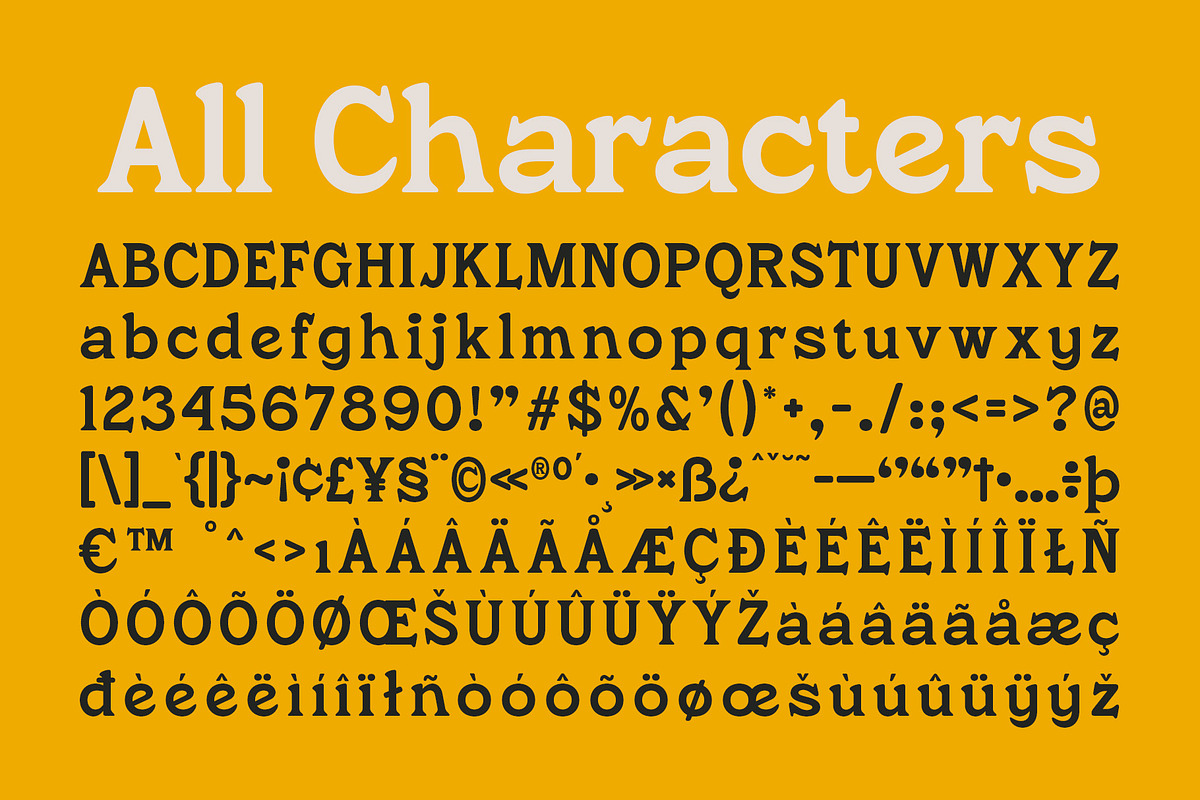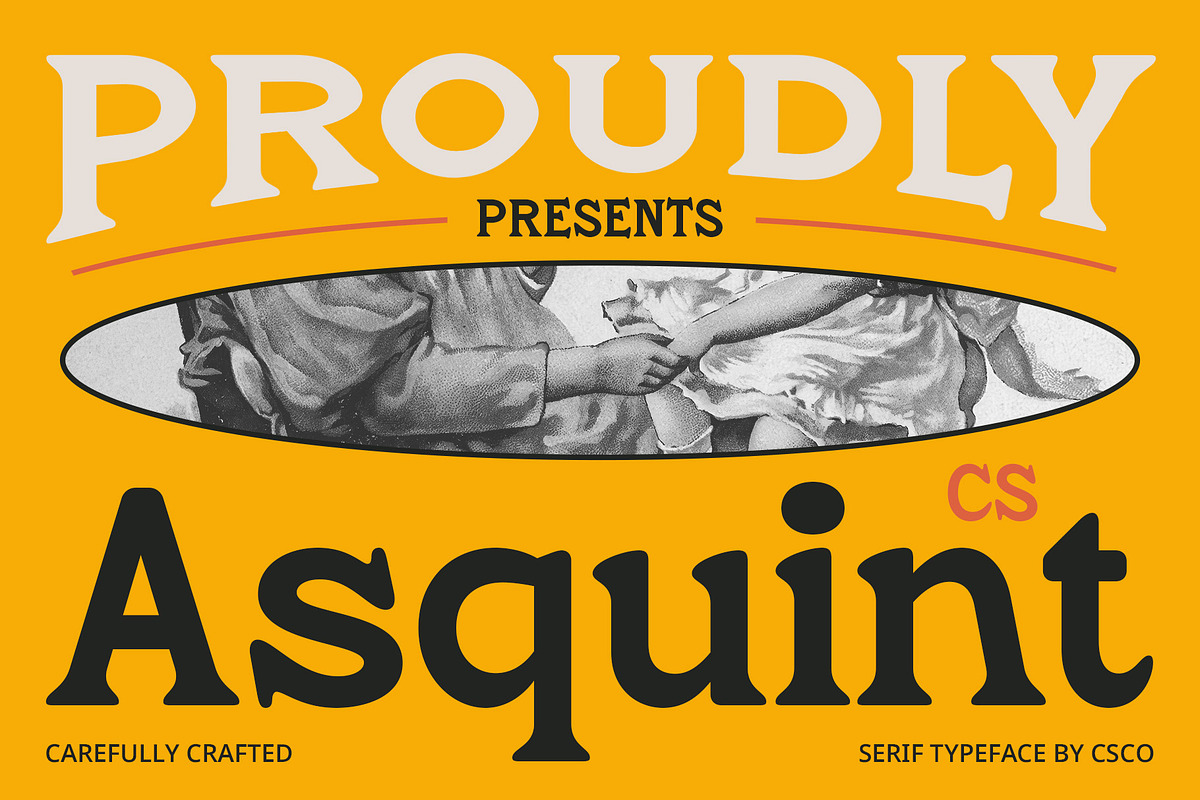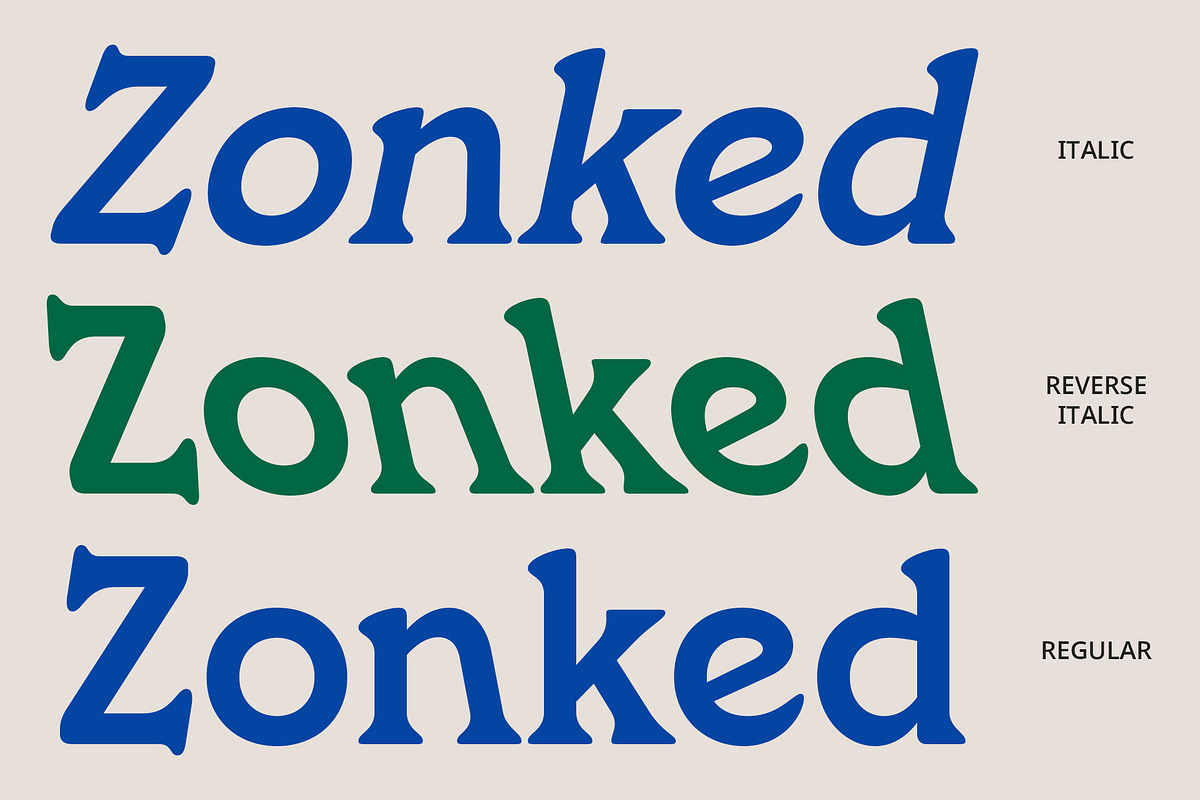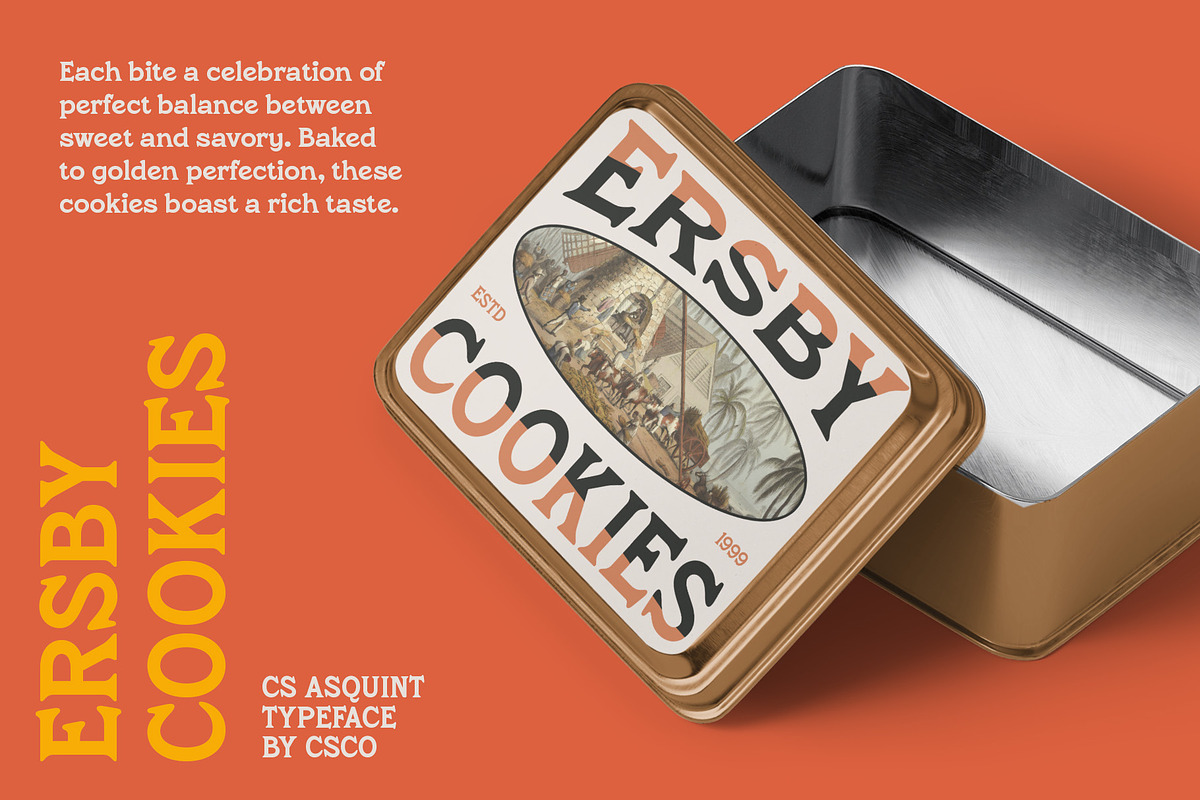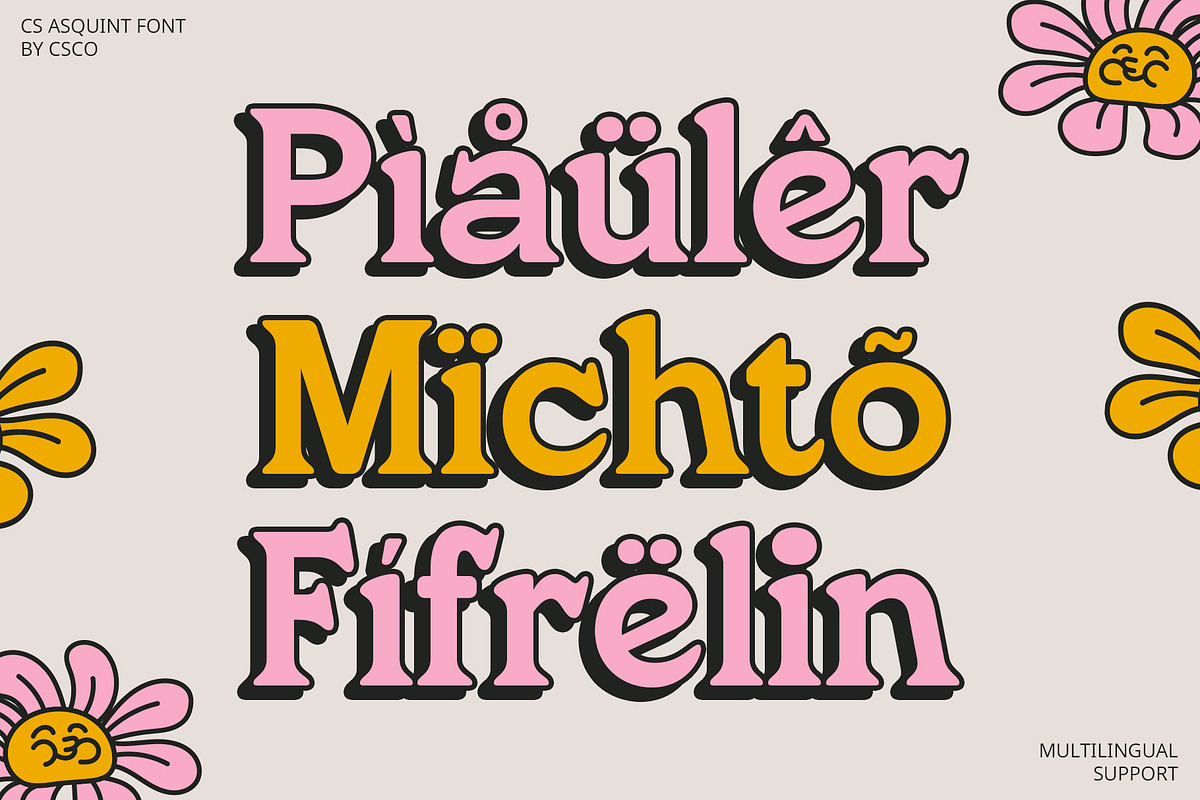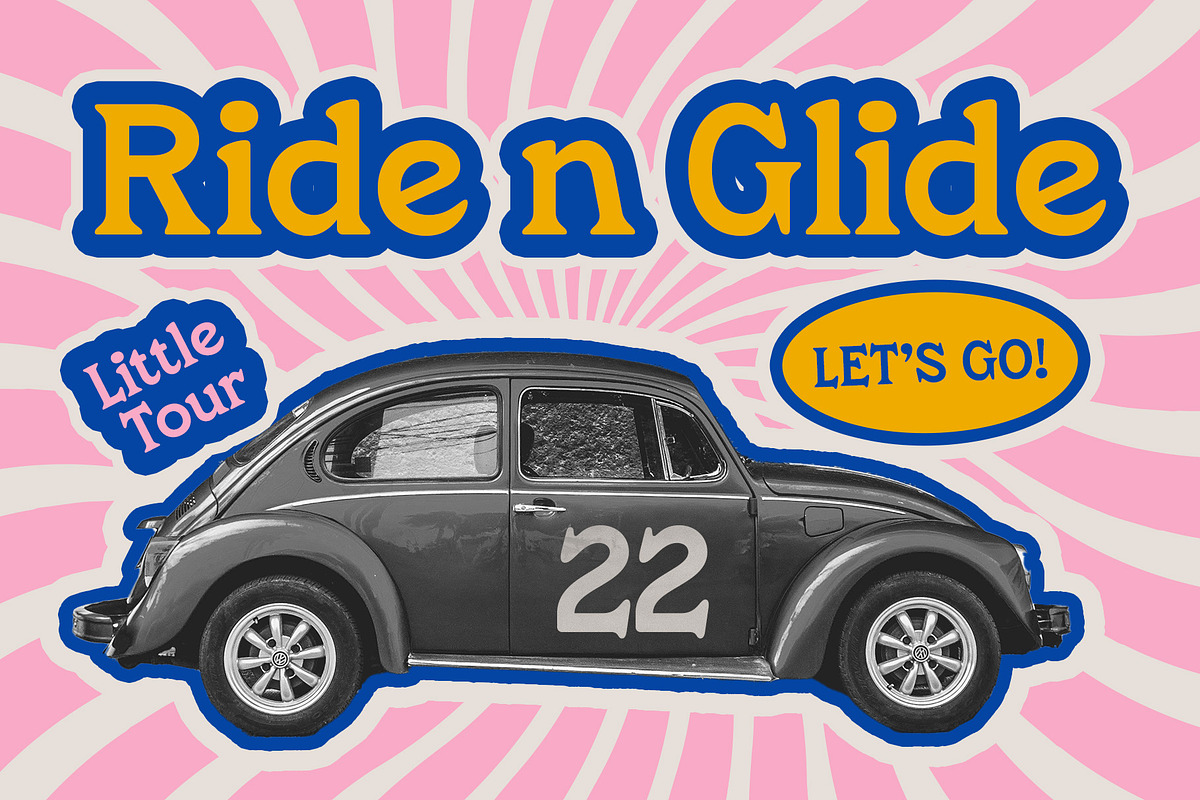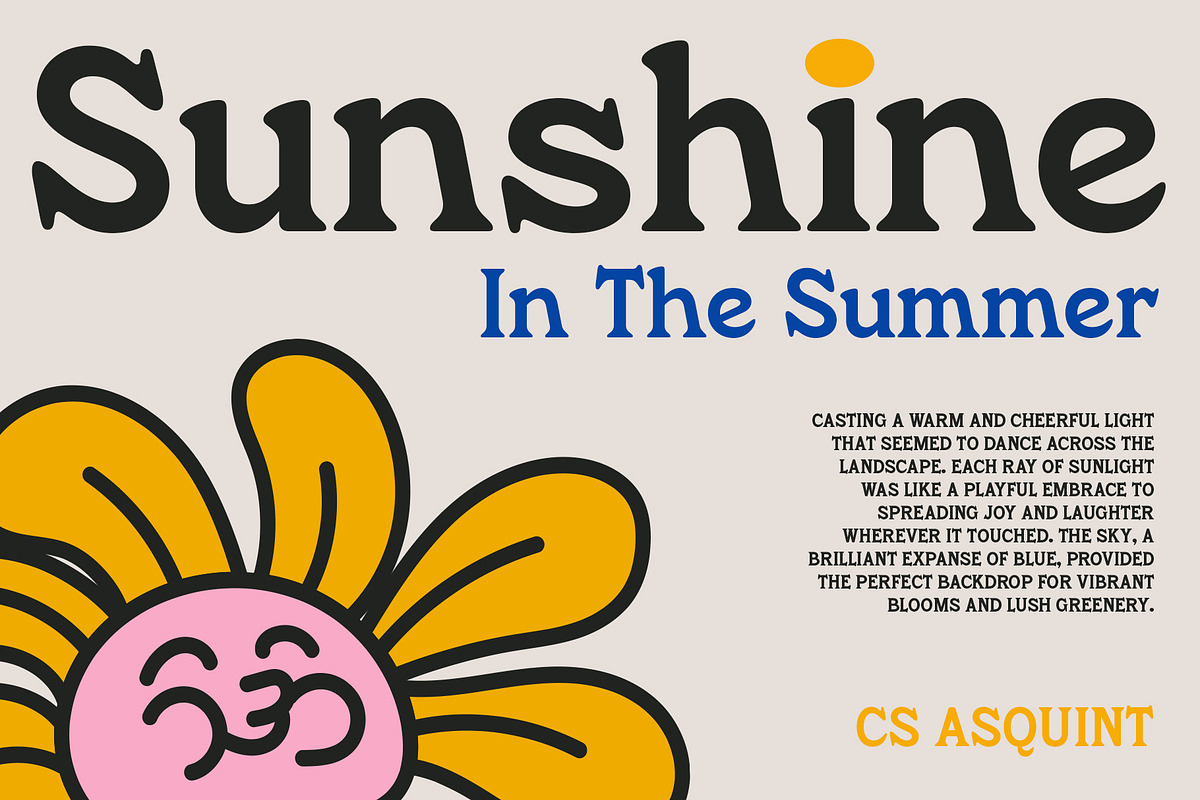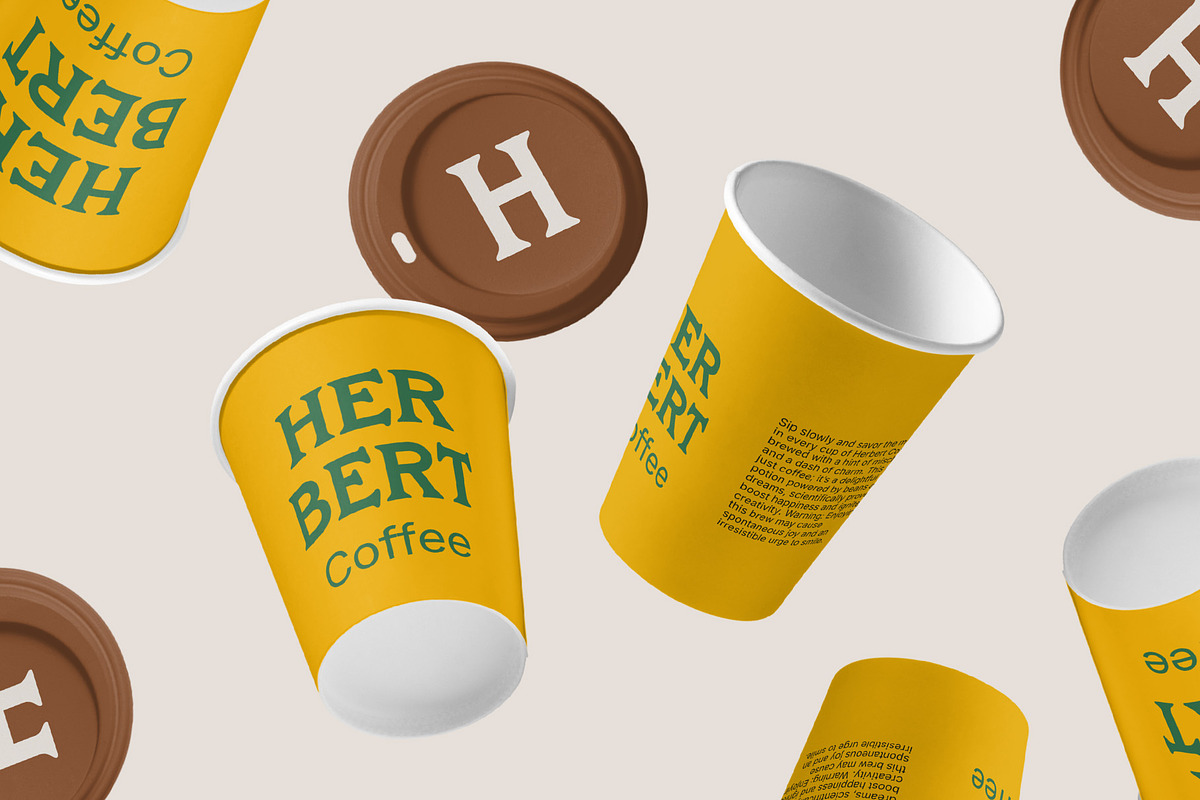
CS Asquint – Serif Font
CS Asquint – Retro Serif Font
Bold and Classic Serif Structure CS Asquint is a bold serif font that masterfully combines classic serif elegance with a retro and cute aesthetic. Its thick lines provide strong visibility and weight, making each letterform stand out with a commanding presence. The traditional serif structures reflect timeless sophistication, while the retro influences evoke a charming sense of nostalgia.
Playful and Nostalgic Design Elements Infused with playful and nostalgic design elements, CS Asquint brings a warm and friendly vibe to your projects. Soft curves and small, whimsical ornaments add a cute touch, creating a font that is both visually engaging and endearing. This combination of classic and playful design makes the font suitable for a variety of creative applications.
Ideal for Retro and Captivating Projects CS Asquint is perfect for design projects that seek to blend classic elegance with a delightful, retro charm. Whether you’re working on event posters, captivating branding, or any project that needs a mix of sophistication and warmth, this font provides a unique and memorable touch. Its bold serif structure combined with its cute, nostalgic elements ensures a standout appearance.
Blending Classic Elegance with Delightful Warmth With its strong serif design and playful retro influences, CS Asquint offers a harmonious blend of classic elegance and whimsical charm.
- CS Asquint Regular
- CS Asquint Italic
- CS Asquint Reverse Italic